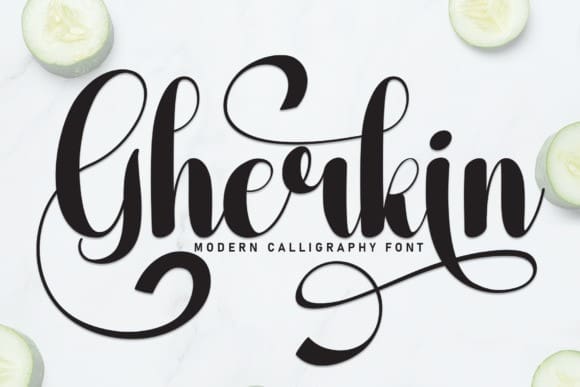
Gherkin Script Font
Gherkin Script Font a whimsical and playful typeface that adds a touch of lightheartedness to your designs. With its rounded curves and friendly letterforms, this font radiates a sense of joy and cheerfulness. Perfect for children’s books, playful branding, and creative projects, Gherkin Font brings a delightful and energetic vibe to your typography. Let the charm of Gherkin Font brighten up your designs and bring smiles to faces.